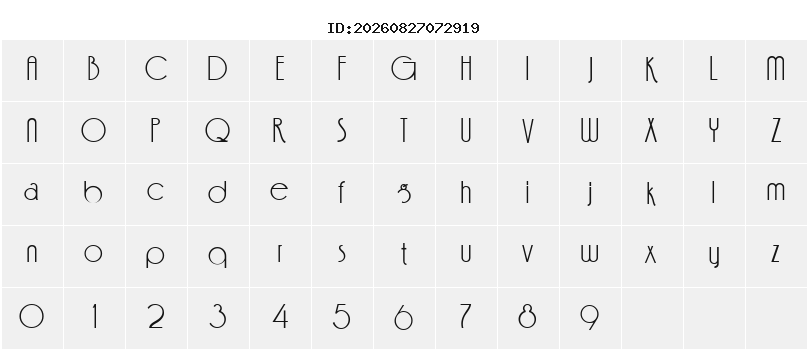
487-CAI978 Preview
• Font Name: 487-CAI978
• Full Font Name: 487-CAI978
About 487-CAI978.ttf
487-CAI978.ttf is a modern, elegant sans-serif font designed for ultimate readability and visual harmony. Perfect for branding, headlines, web design, and print materials.